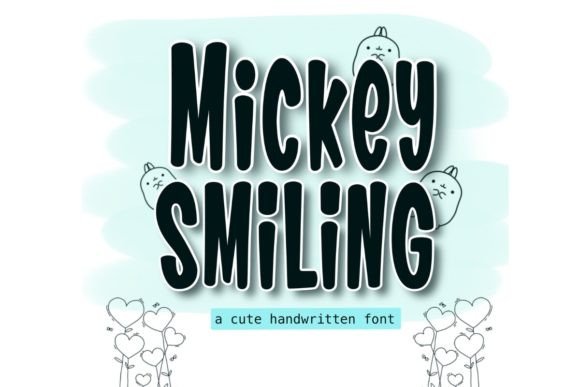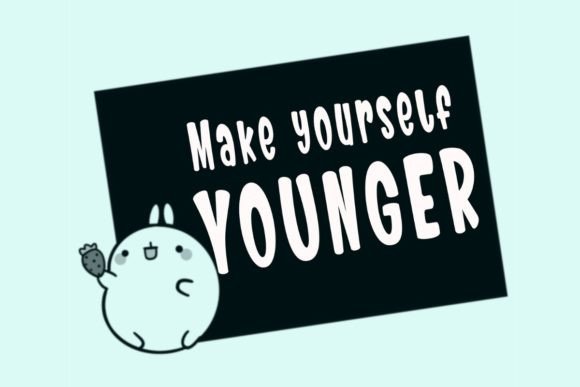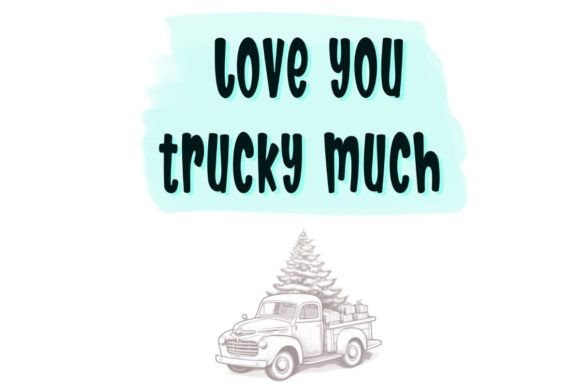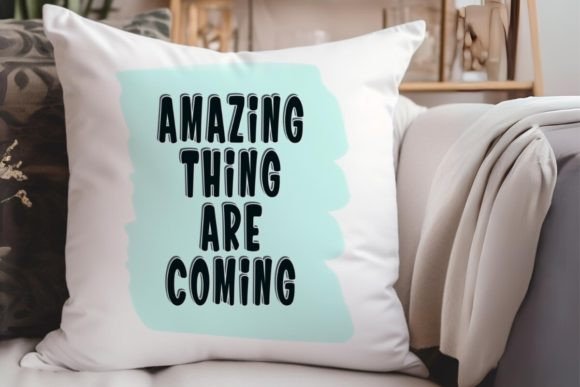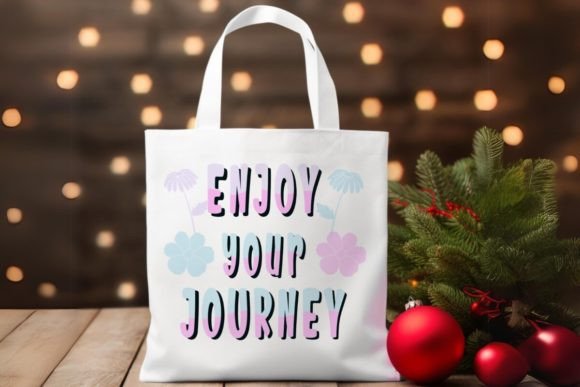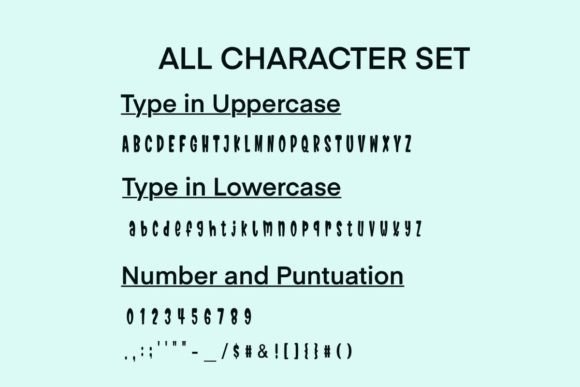
Micky Smiling Font
Micky Smiling Font is a cute handwritten font that delivers a playfully nostalgic and incredible display font to any design idea you can think of.
Use this font to add a festive touch to your holiday projects, such as Christmas, Thanksgiving, and Valentine’s Day fonts.Perfect for creating a wide variety of designs such as banners, content, mugs, cards, shirts, stationery, social media posts, and more!